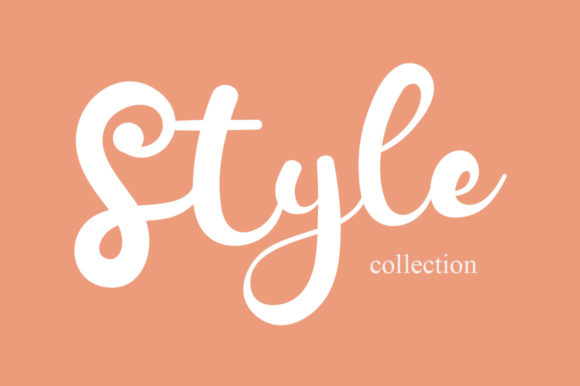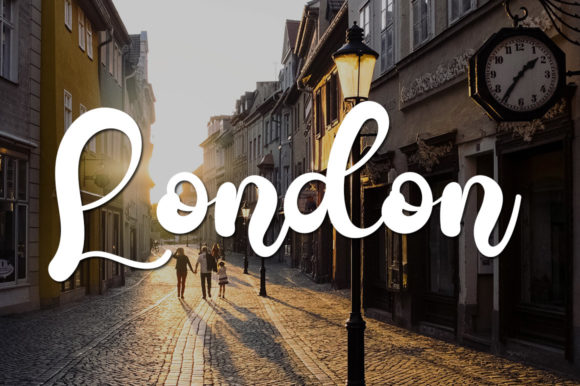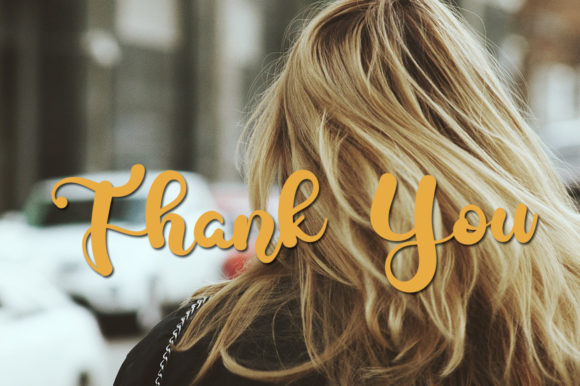
Introduction to Quick Wearing Font
As a designer, there’s nothing quite like the thrill of finding the perfect font to bring a project to life. Remember that one time you spent hours browsing through font libraries, only to stumble upon a hidden gem that made all your designs shine? For us, that moment was when we discovered the Quick Wearing Font. This beautiful handwritten font is a game-changer, and we can’t wait to share its magic with you.
The Quick Wearing Font is more than just a pretty face – it’s a high-quality design resource that can elevate any creative project. With its fresh, clean, and elegant look, it’s perfect for both formal and informal designs. Whether you’re working on a branding project, a social media campaign, or a wedding invitation, this font is sure to add an incredibly joyful touch.
Key Features of Quick Wearing Font
- High-quality design resource for creative projects: Quick Wearing Font offers a unique and stylish typography perfect for various design needs.
- Unique characteristics: Quick Wearing Font features a distinctive and modern design, with a range of styles and weights to suit various creative projects.
- Perfect for logo design, branding, and advertising: The font’s unique style and versatility make it an excellent choice for logo design, branding, and advertising projects.
Honest Review: Quick Wearing Font
I recently stumbled upon the Quick Wearing Font, a design resource that caught my attention with its sleek and modern design. As a designer, I’m always on the lookout for high-quality fonts to enhance my creative projects.
- High-quality design that’s perfect for modern creative projects
- Stylish and modern aesthetic that’s sure to impress
- Limited character set, which may not be suitable for complex text-based designs
- No bold or italic versions available, which can limit its versatility
Overall, the Quick Wearing Font is a solid addition to any designer’s toolkit. While it may have some limitations, its high-quality design and transparent background make it a great choice for modern creative projects.
Getting the Most Out of Quick Wearing Font
To get the most out of the Quick Wearing Font, be sure to use it in conjunction with other high-quality design elements. Experiment with different font sizes, colors, and arrangements to create visually appealing designs. You can also use the font in combination with other design resources, such as graphics and images, to add depth and interest to your creative project.
The Quick Wearing Font is perfect for a variety of creative projects, including logos, business cards, and social media graphics. It’s also great for creating invitations, flyers, and other promotional materials. With its high-quality design and transparent background, this font is a valuable resource for anyone looking to add a professional touch to their creative project.